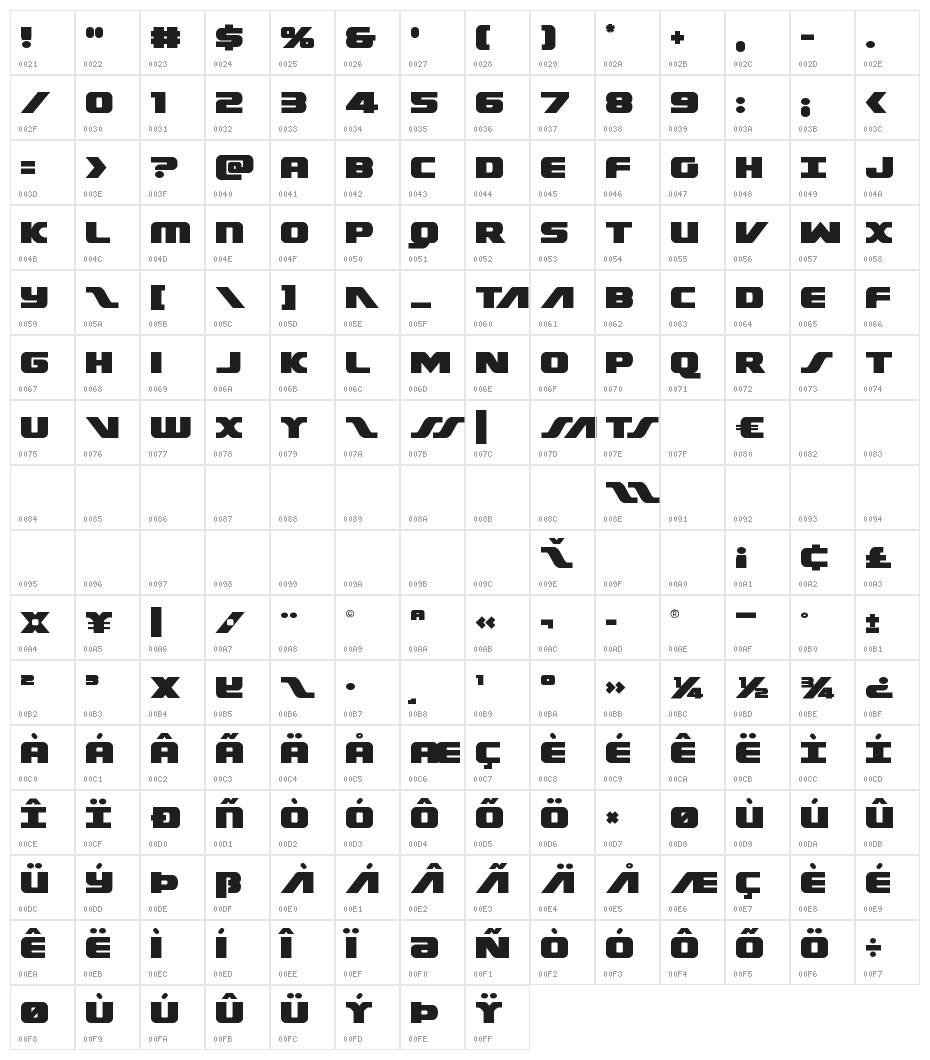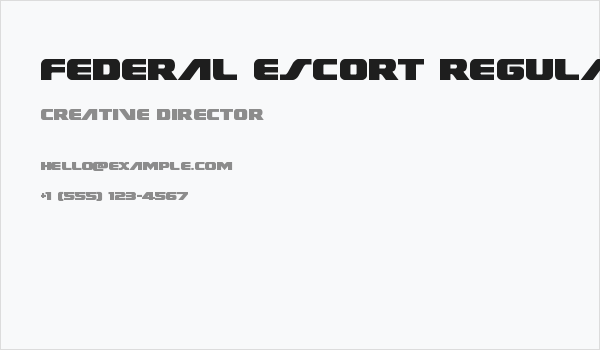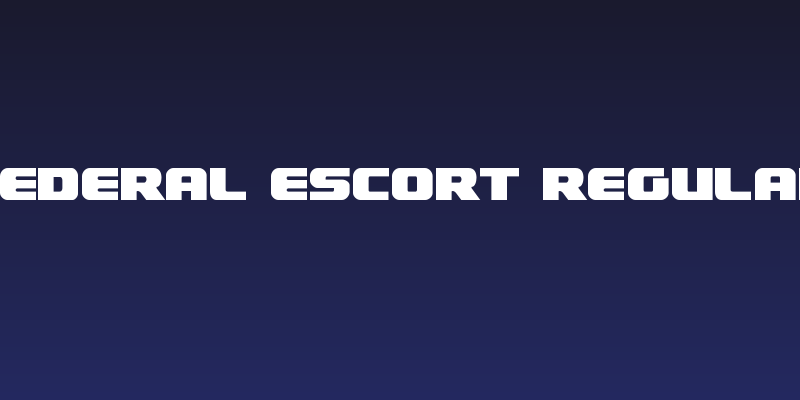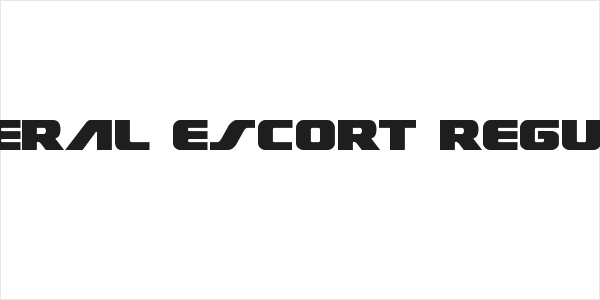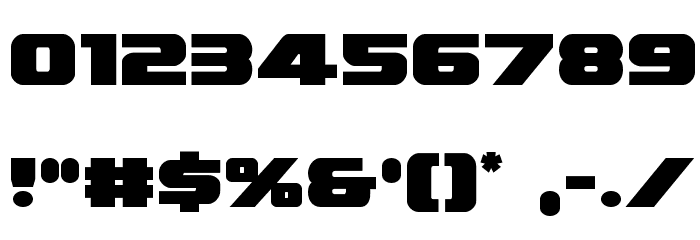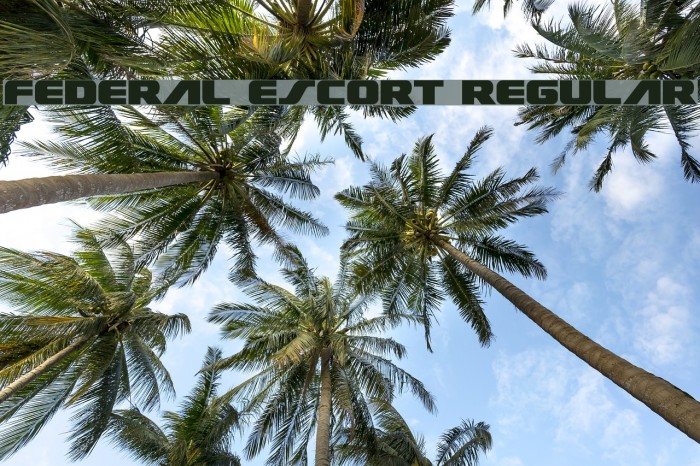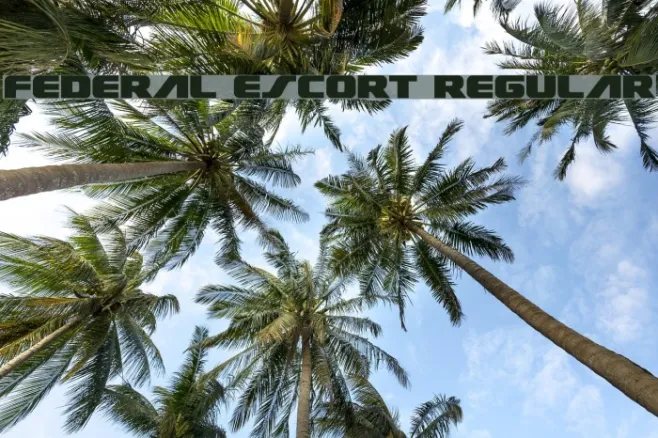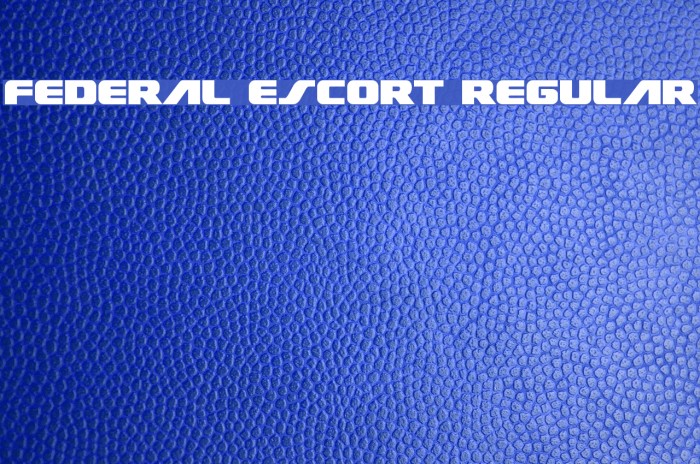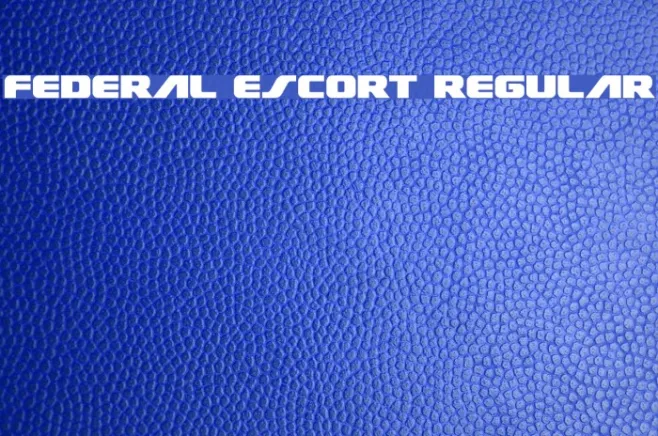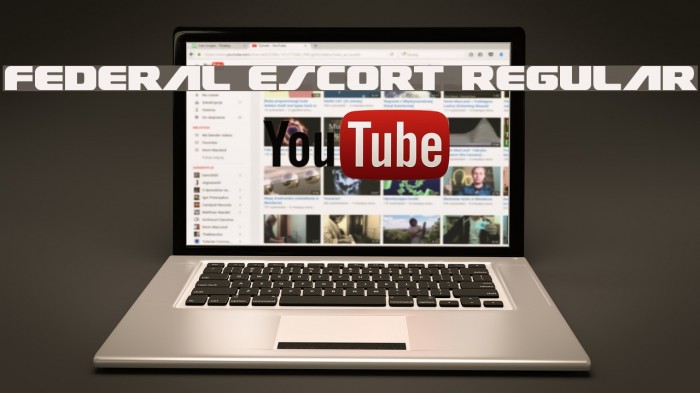
Federal Escort Regular Font
Federal Escort Regular Description
This font features a bold and striking design with a futuristic and geometric aesthetic. The characters are constructed with thick, uniform strokes that give a sense of strength and stability. The angular cuts and sharp edges add a modern and dynamic feel, making it stand out in any design. The uppercase letters are particularly prominent, with a blocky appearance that commands attention. The numerals and special characters maintain the same boldness and geometric style, ensuring consistency across all elements. This font is ideal for projects that require a strong visual impact and a contemporary look.
FEDERAL-ESCORT-REGULAR UPPERCASE
FEDERAL-ESCORT-REGULAR LOWERCASE
FEDERAL-ESCORT-REGULAR OTHER CHARS